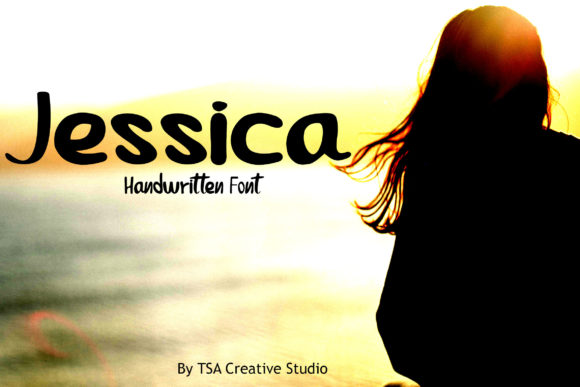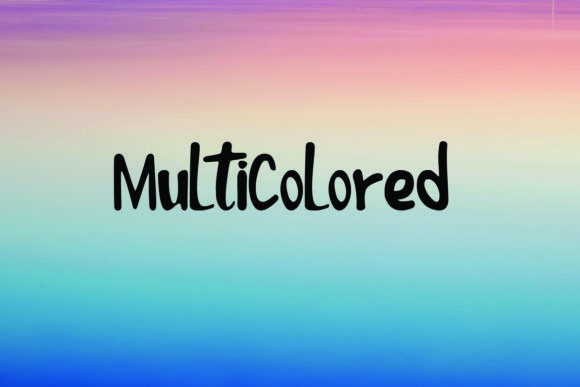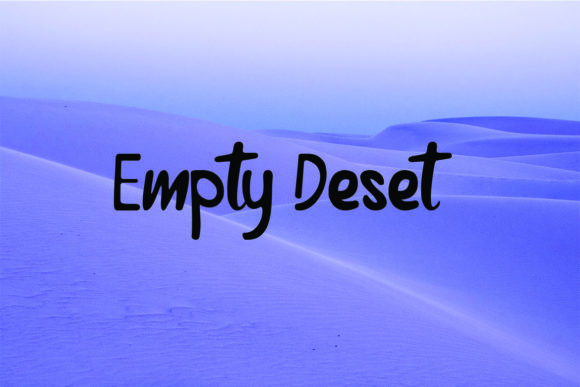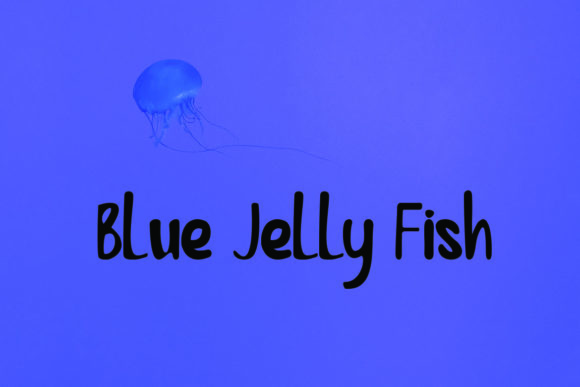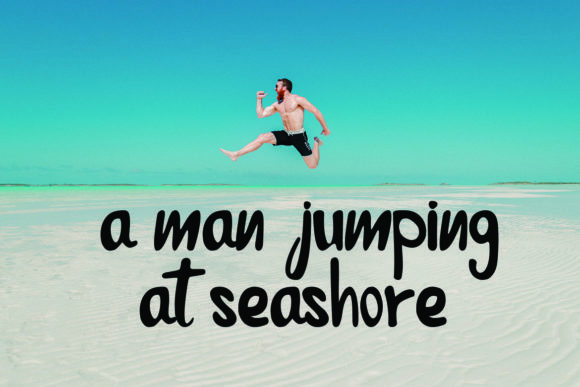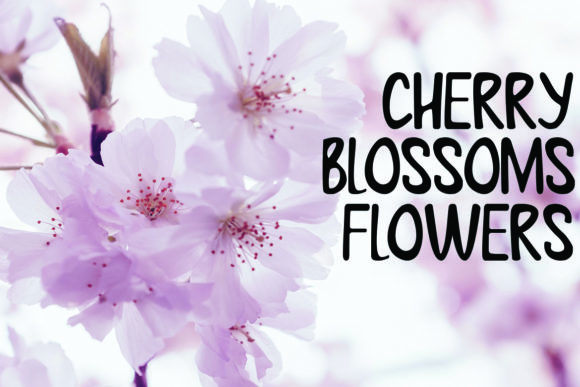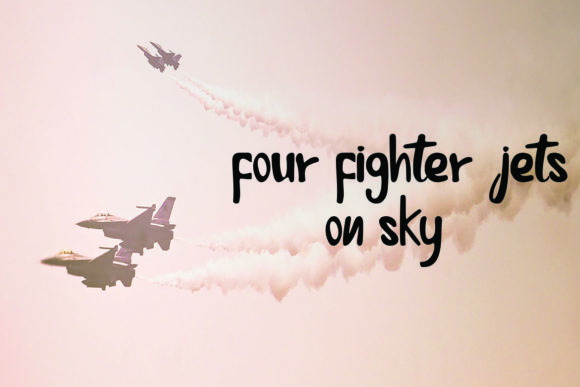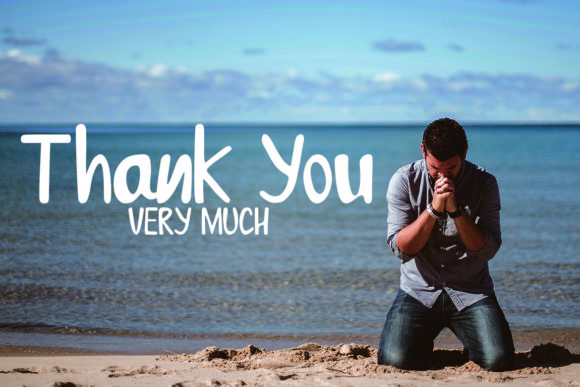
Jessica Font
About Jessica Font
The Jessica is a modern, dynamic & fluid handwritten font. It’s striking characters are perfect for branding, logo designs, lettering, posters, magazines, and much more!